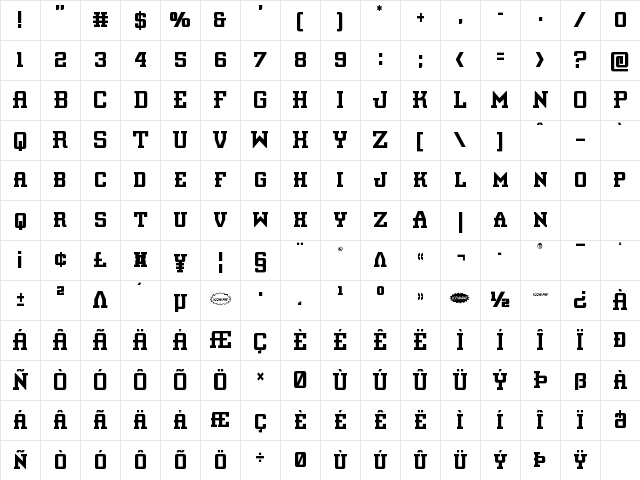
Interceptor Condensed Free Font
Interceptor Condensed Condensed
Style: Condensed
Complete Interceptor Condensed glyph index. Displaying only characters natively supported by Interceptor Condensed font.
Design Context for Interceptor Condensed
Interceptor Condensed is a composed and adaptable typeface that performs quietly and consistently across a wide range of design contexts. Its narrow stance lets it pack a punch even in space-constrained designs.